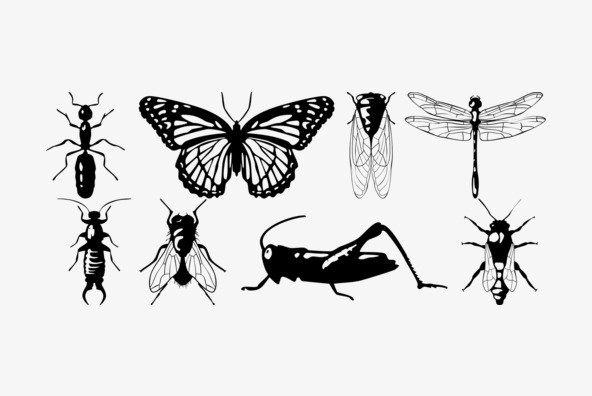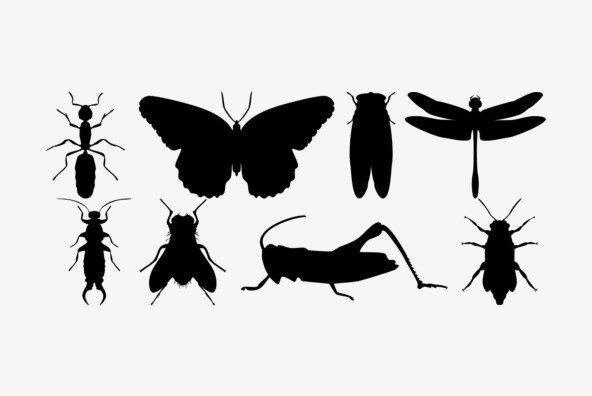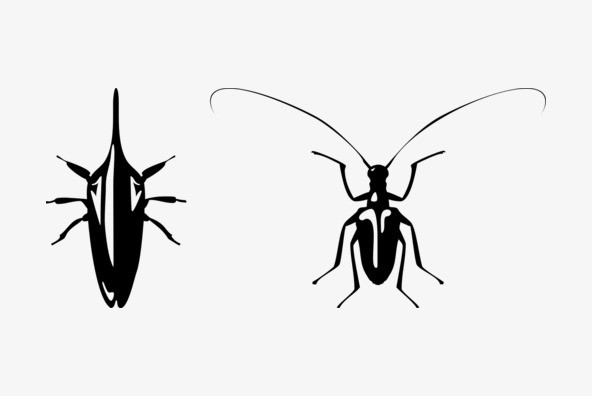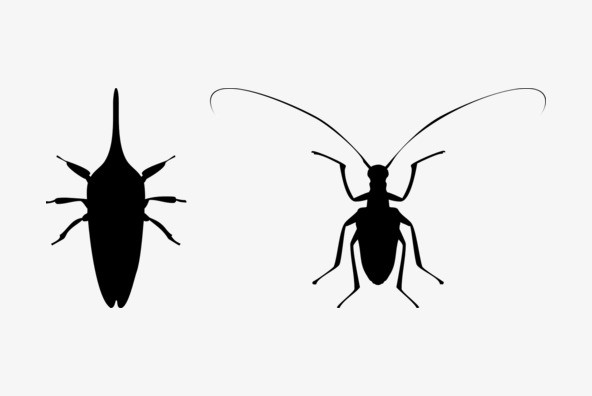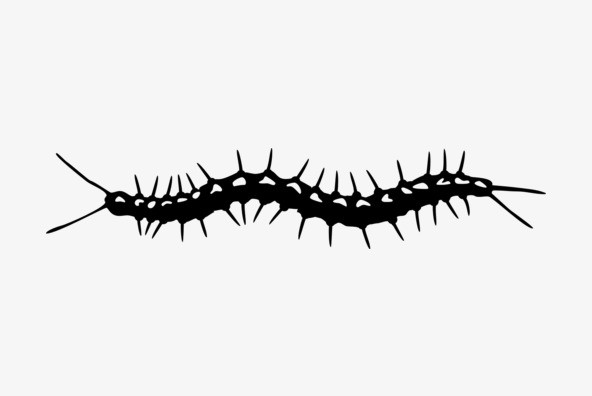
P22 Insectile
Programmers often try to knock the “bugs” out of their computers, but P22 allows you to install them and use them to your advantage. Insectile is a set with 38 accurate insect illustrations and a font (Infestia) made up of actual scanned and rearranged insect parts.